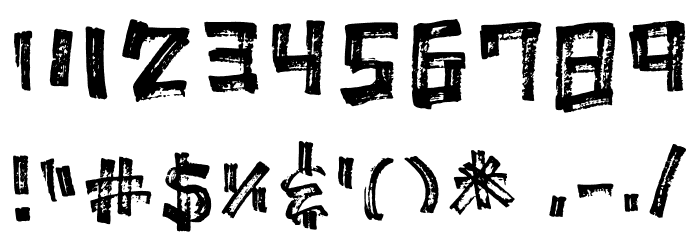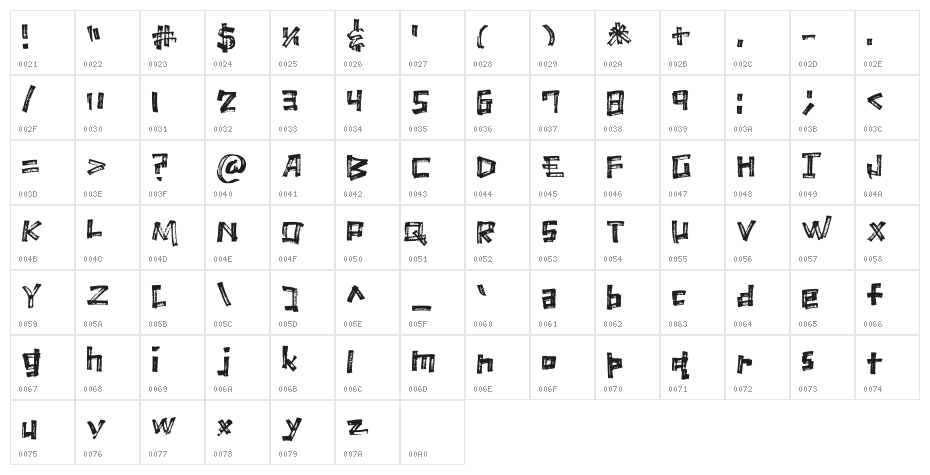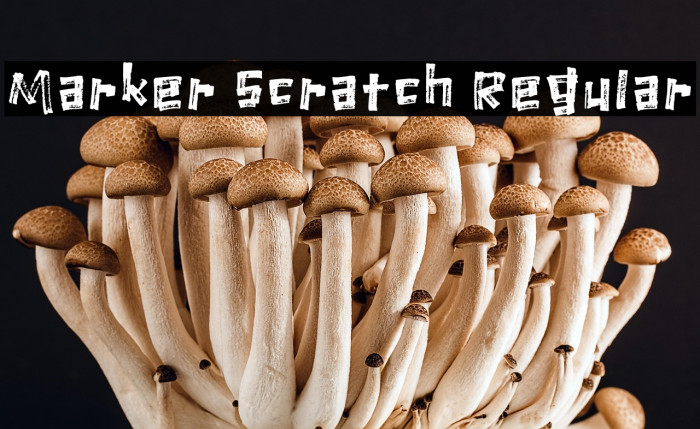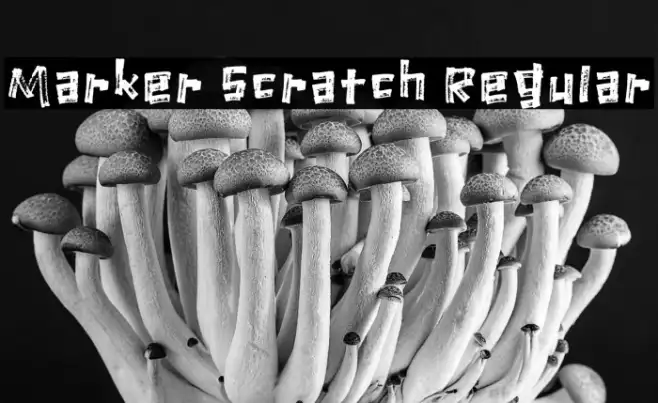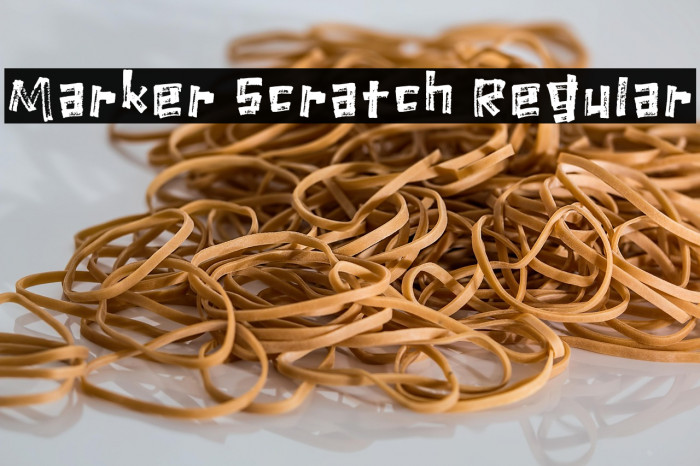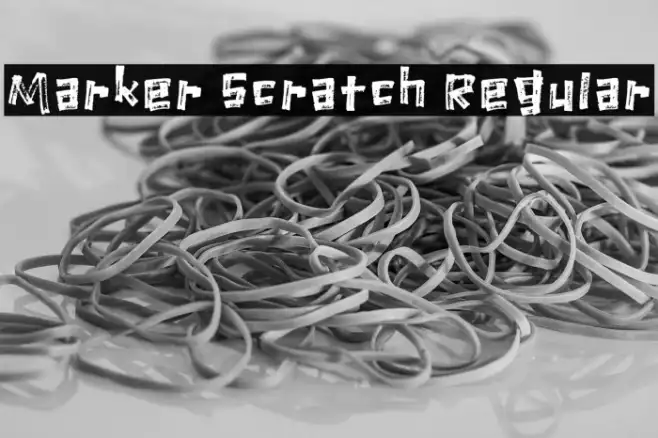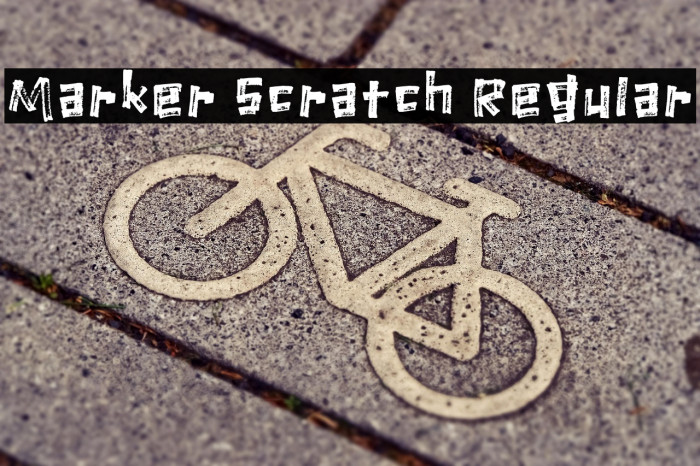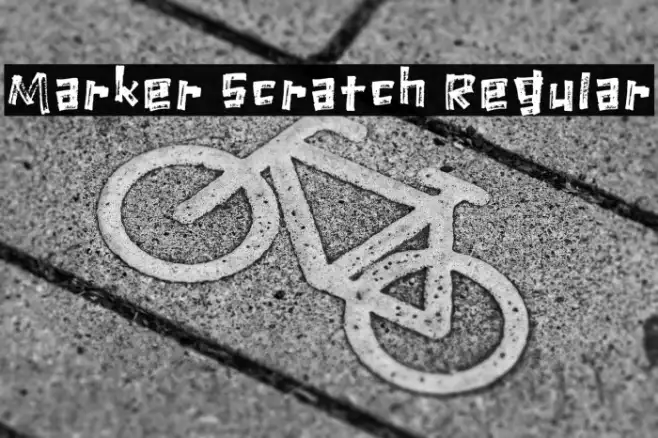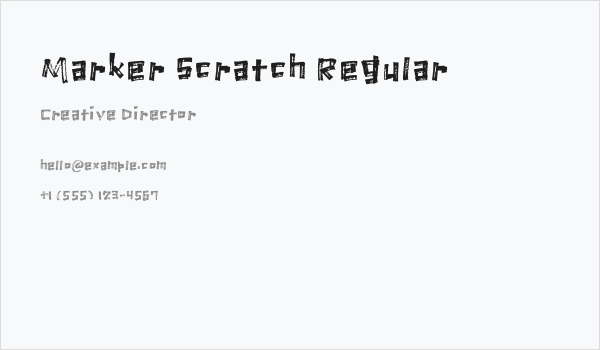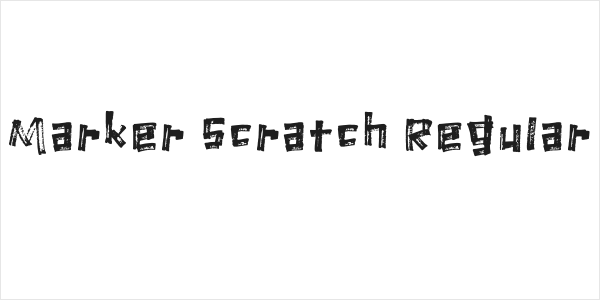
Marker Scratch Regular Font
Marker Scratch Regular Description
This font features a bold, hand-drawn style that mimics the look of letters scratched with a marker. The characters are irregular and rough, with a distressed texture that gives them a raw, edgy appearance. Each letter has a unique form, contributing to an overall chaotic yet artistic feel. The uppercase and lowercase letters maintain a consistent style, with thick strokes and uneven edges. Numbers and special characters follow the same design, ensuring a cohesive look across all elements. This font is ideal for projects that require a bold statement or a grunge aesthetic.
| Proposed Projects | Ideal for album covers, posters, street art designs, and edgy branding projects. |